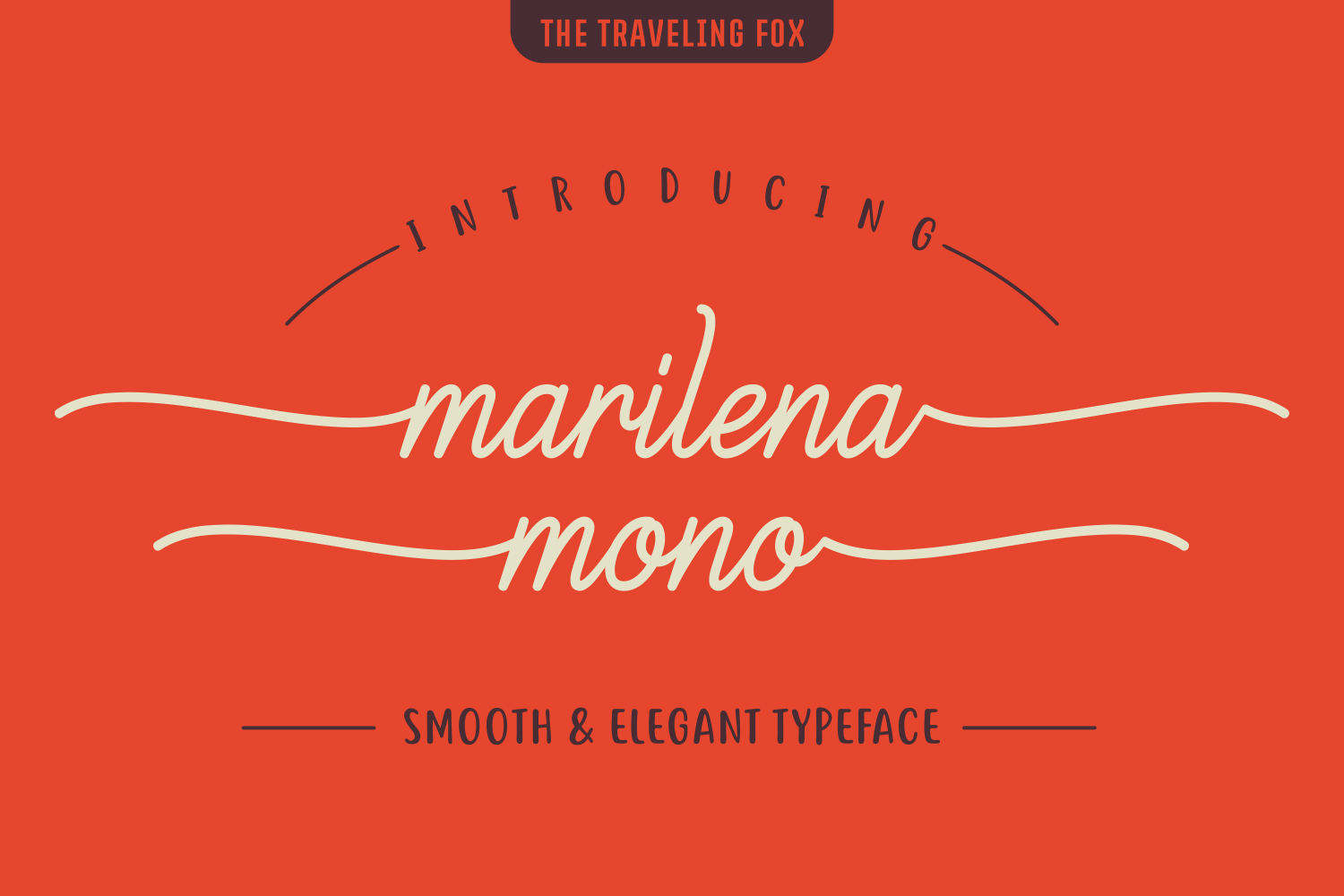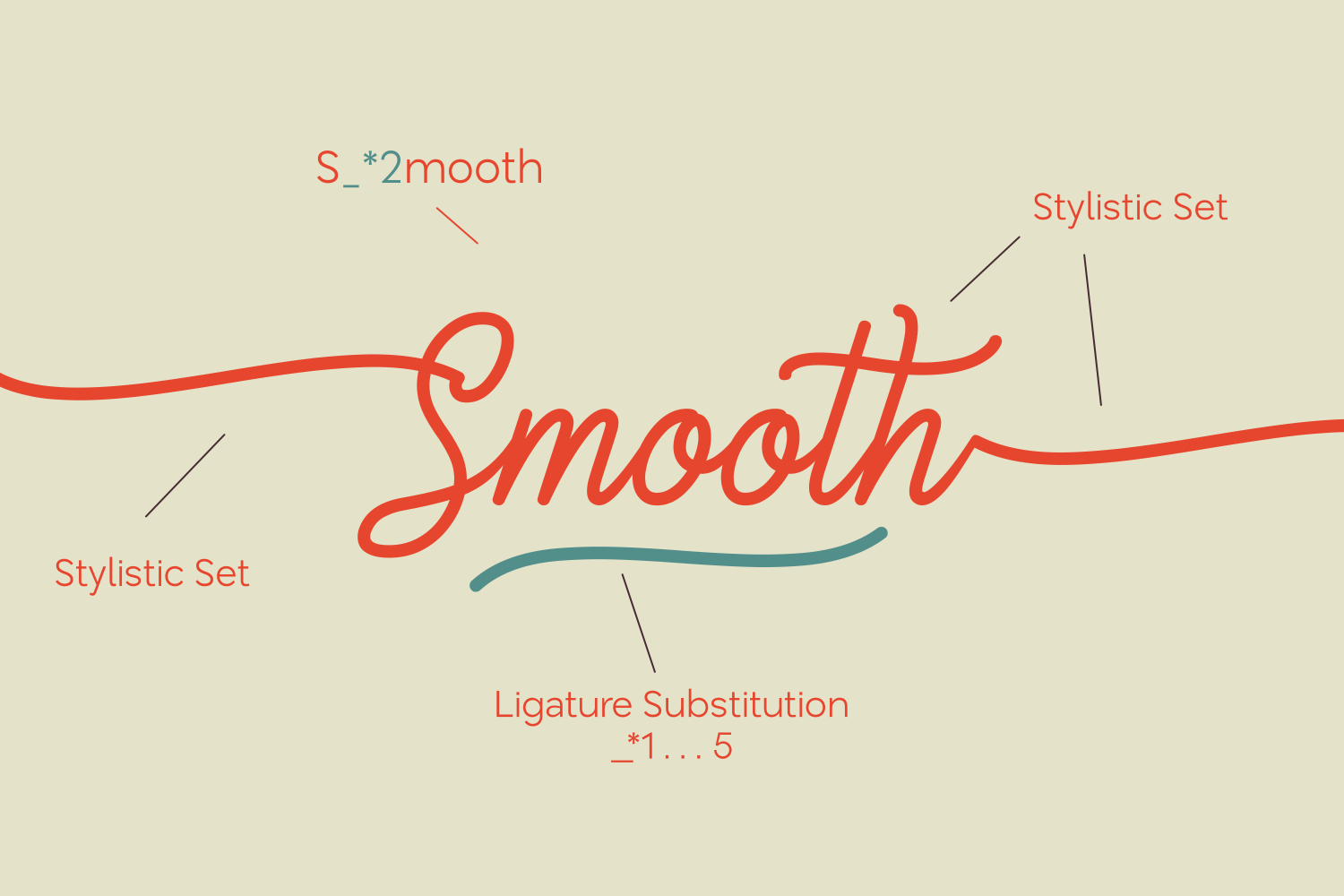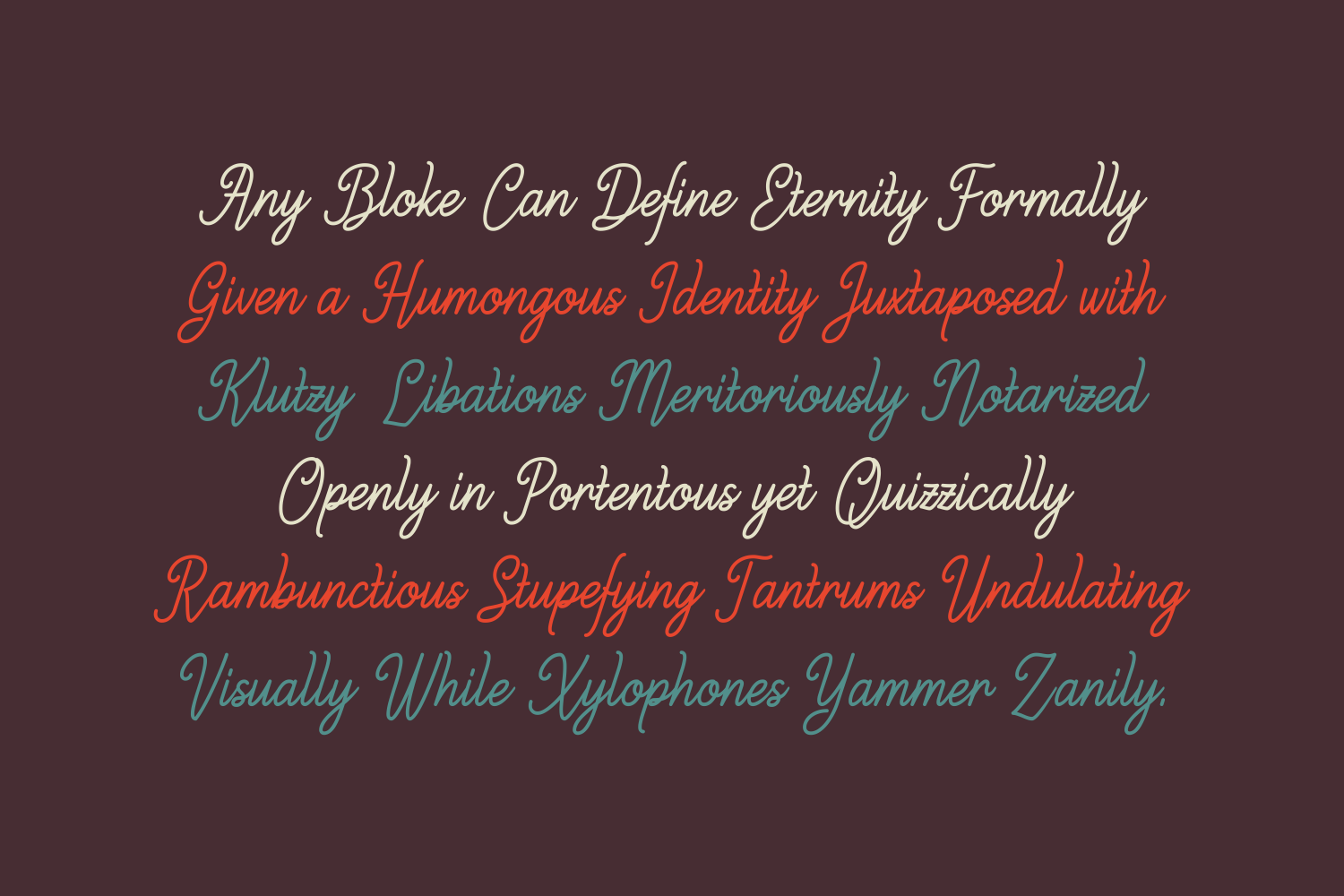
Marilena Mono Font
Marilena Mono is a smooth, elegant font. The rounded monoline letters are very pleasant to read, making this a very legible font.
It features long start and ending swashes that don’t need any special encoding — simply type _*1 and the swashes will be added. This makes Marilena Mono both stylish and user-friendly, ideal for creating graceful headlines, invitations, or branding elements with a refined touch. Its balance of simplicity and sophistication ensures it stands out while maintaining effortless readability.